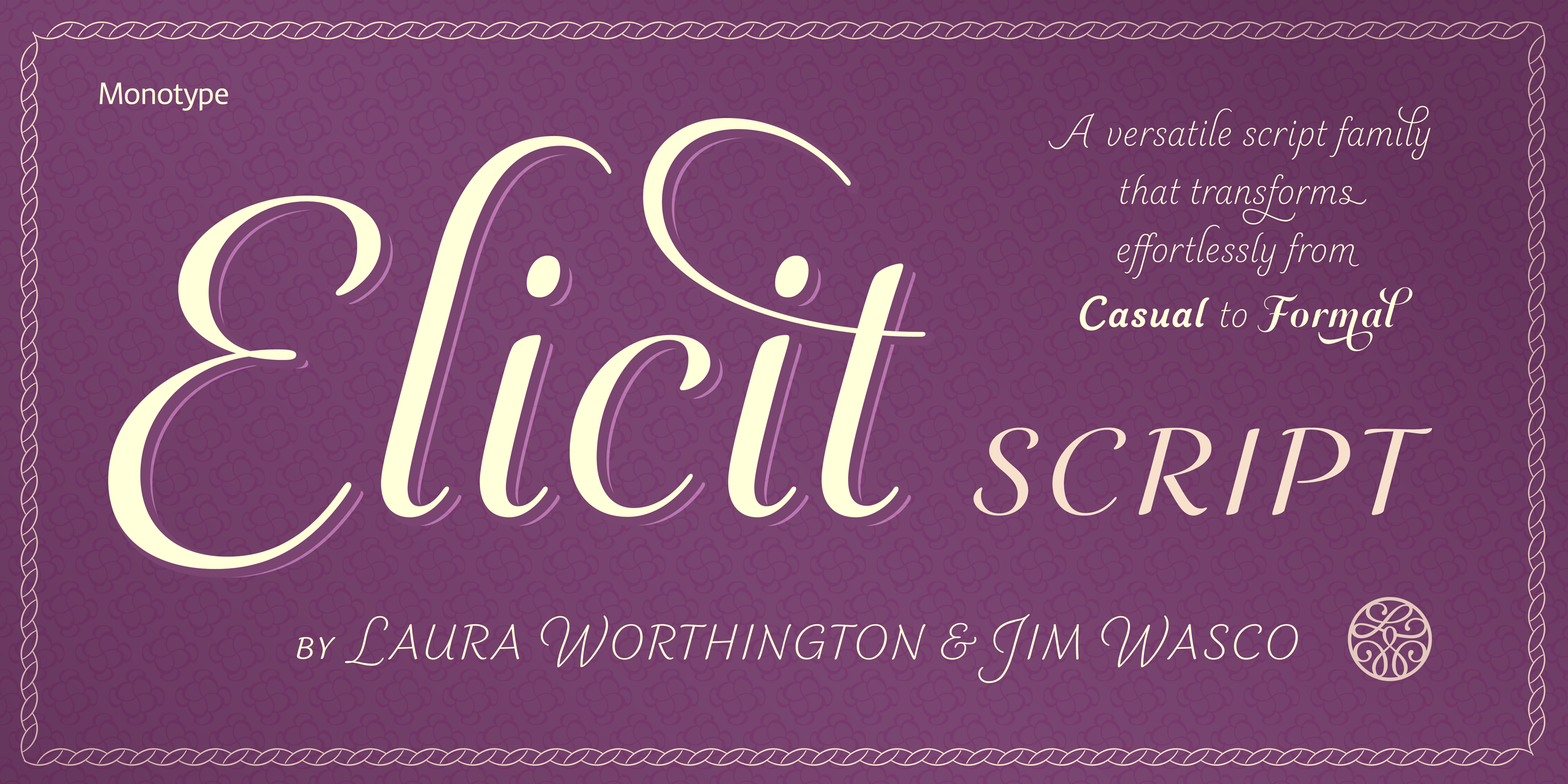
Elicit Script Font is perfect for elegant wedding invitations, romantic branding, luxury cosmetics packaging, sophisticated calligraphy art, upscale restaurant menus, boutique hotel signage, feminine business logos, high-end greeting cards, and refined editorial headlines. This graceful script typeface brings flowing elegance and romantic sophistication to projects requiring handwritten charm and luxurious visual appeal.
What makes Elicit Script Font exciting is its captivating flow that combines masterful calligraphy traditions with contemporary elegance to create irresistible romantic appeal and sophisticated charm. The font features fluid letterforms with graceful connections and elegant flourishes that dance across the page with natural rhythm and artistic beauty. Its enchanting character and luxurious personality make it irresistible for premium brands seeking typography that evokes emotion and creates memorable experiences through beautiful, handcrafted visual storytelling.
The Elicit Script Font family includes elegant weights and romantic styles: Regular, Medium, Bold, and decorative variations with swash alternates, ligatures, and ornamental flourishes. Each style maintains the font's graceful character while offering designers creative flexibility for luxury branding and sophisticated design applications requiring romantic elegance.
Whether you're designing for luxury services or romantic occasions, Elicit Script Font Free Download offers designers an enchanting, romance-focused typeface solution. The font's flowing aesthetics and elegant styling make it ideal for wedding planners, luxury spas, high-end jewelry brands, and sophisticated lifestyle companies. Its captivating presence ensures your message communicates romance and luxury while maintaining beautiful readability. The comprehensive character set includes decorative swashes and romantic symbols, making it perfect for creating memorable headlines and brand identities that celebrate love and elegance while establishing emotional connections with audiences seeking sophisticated romantic experiences.